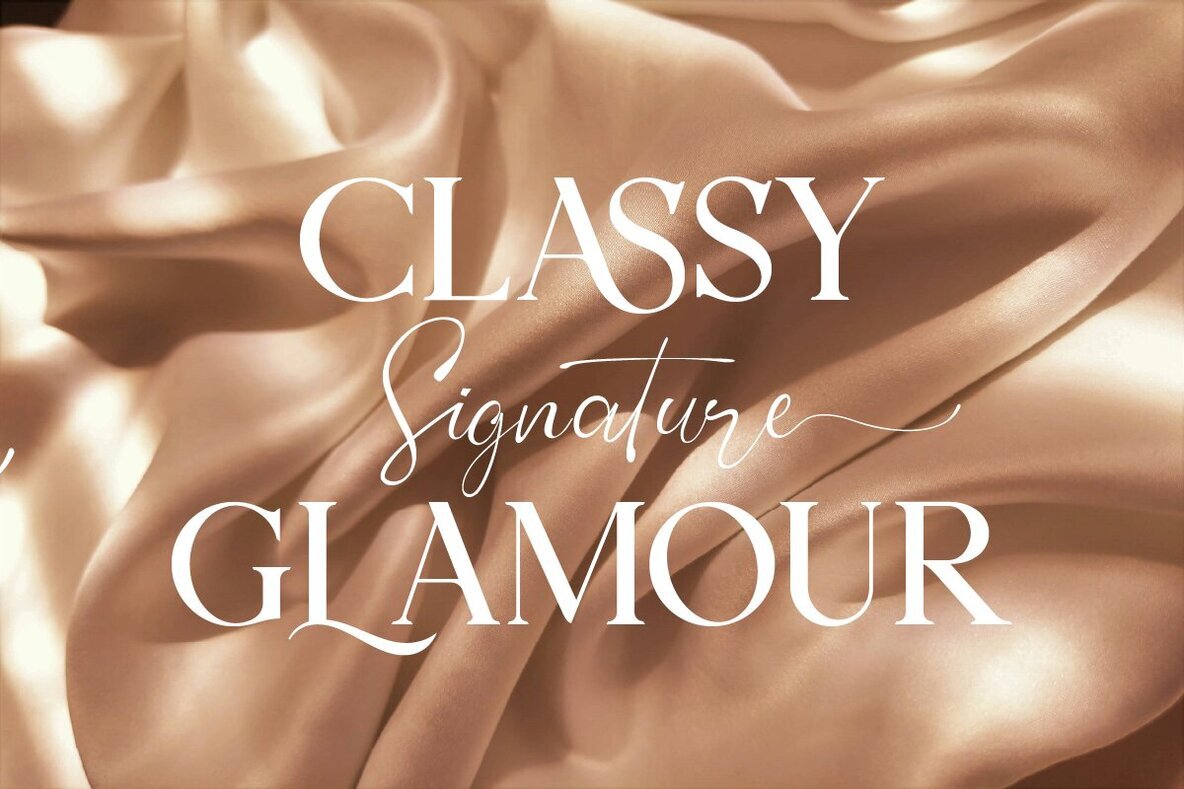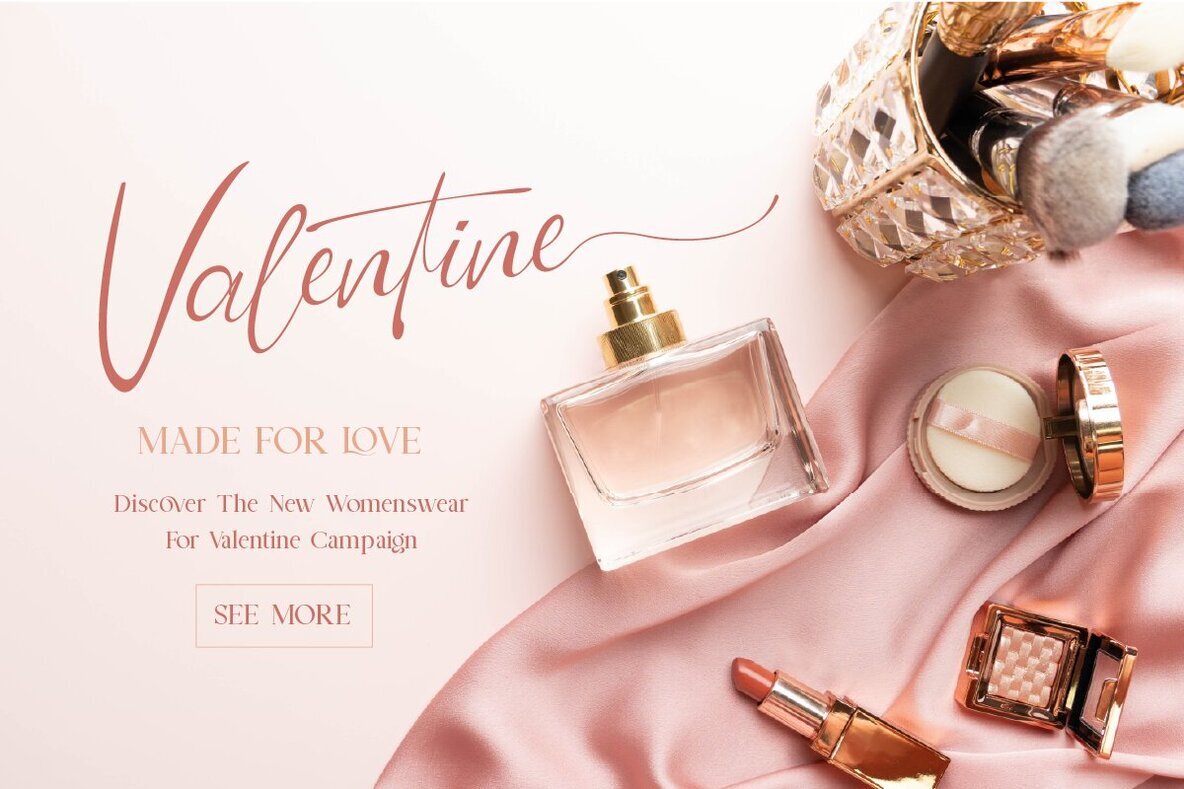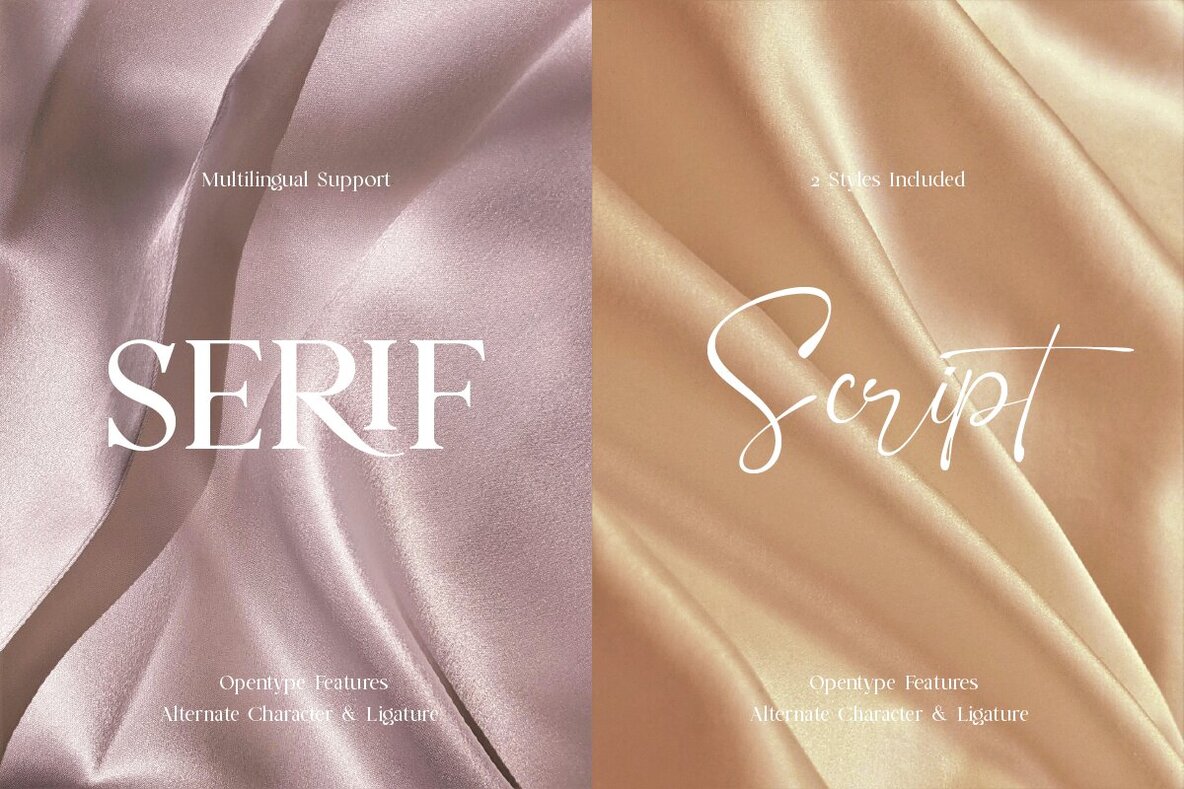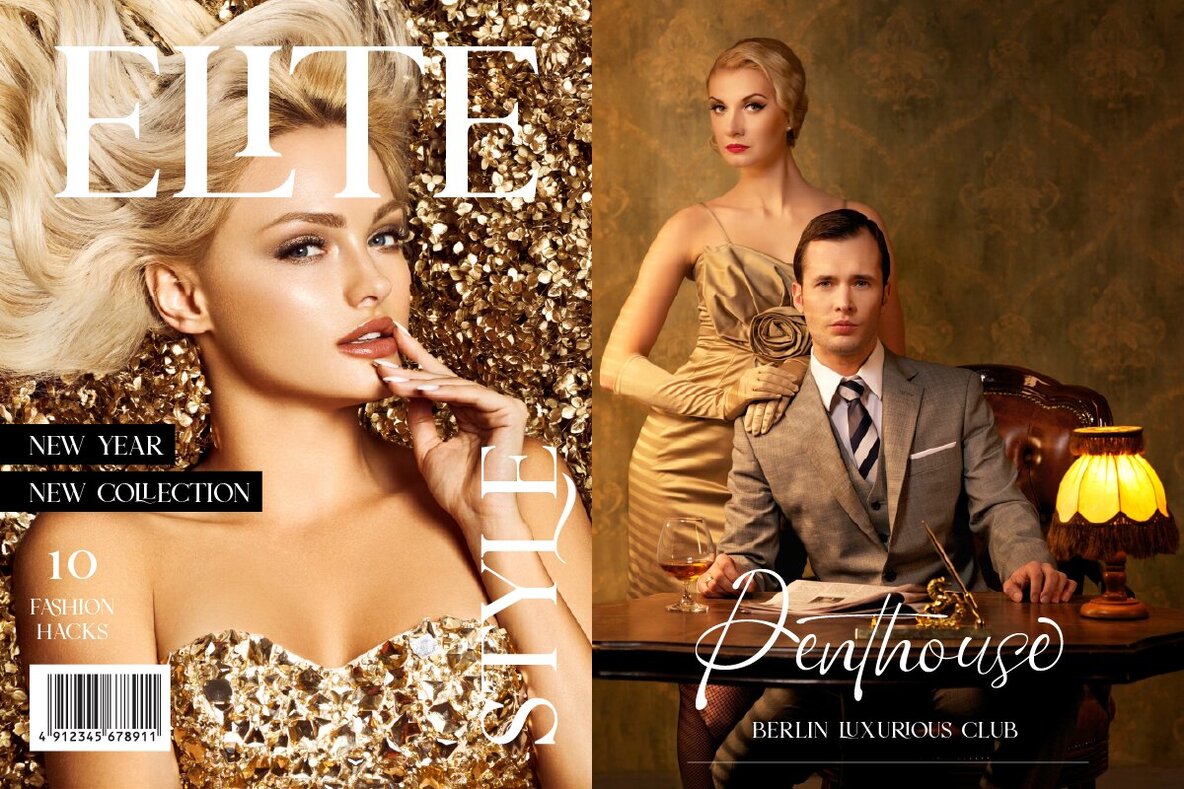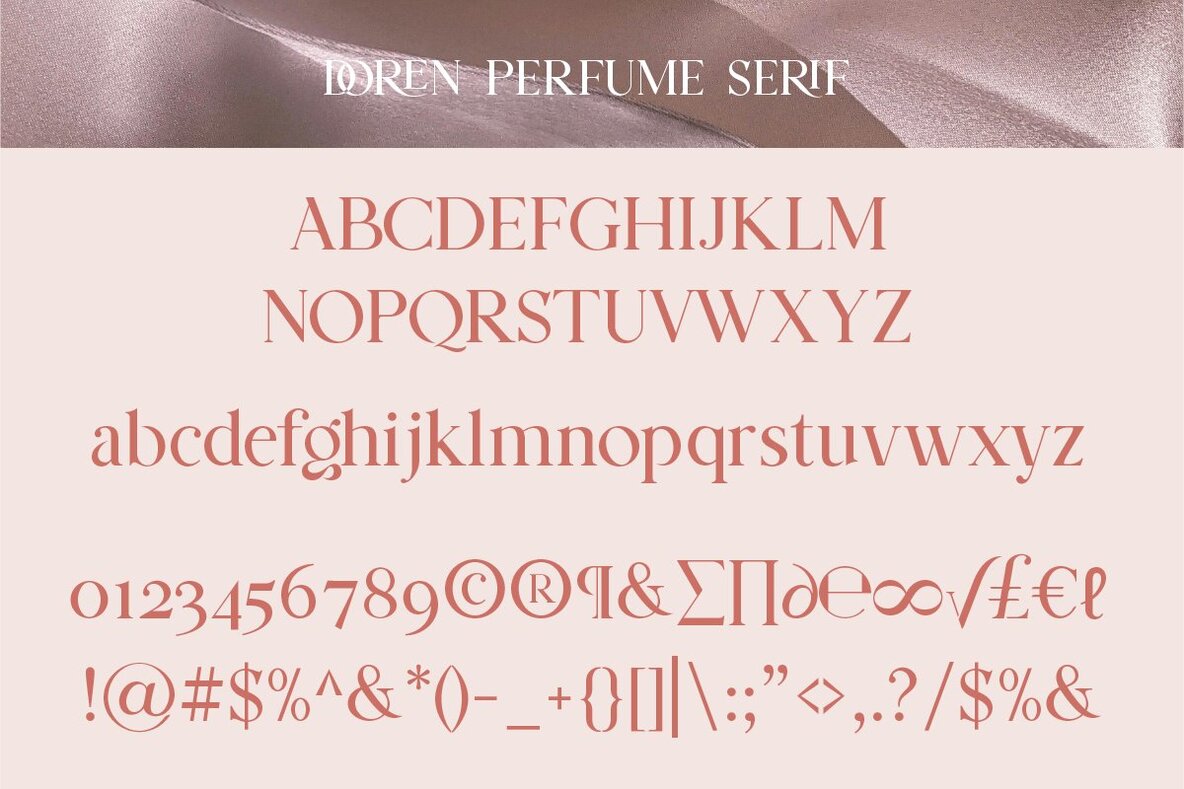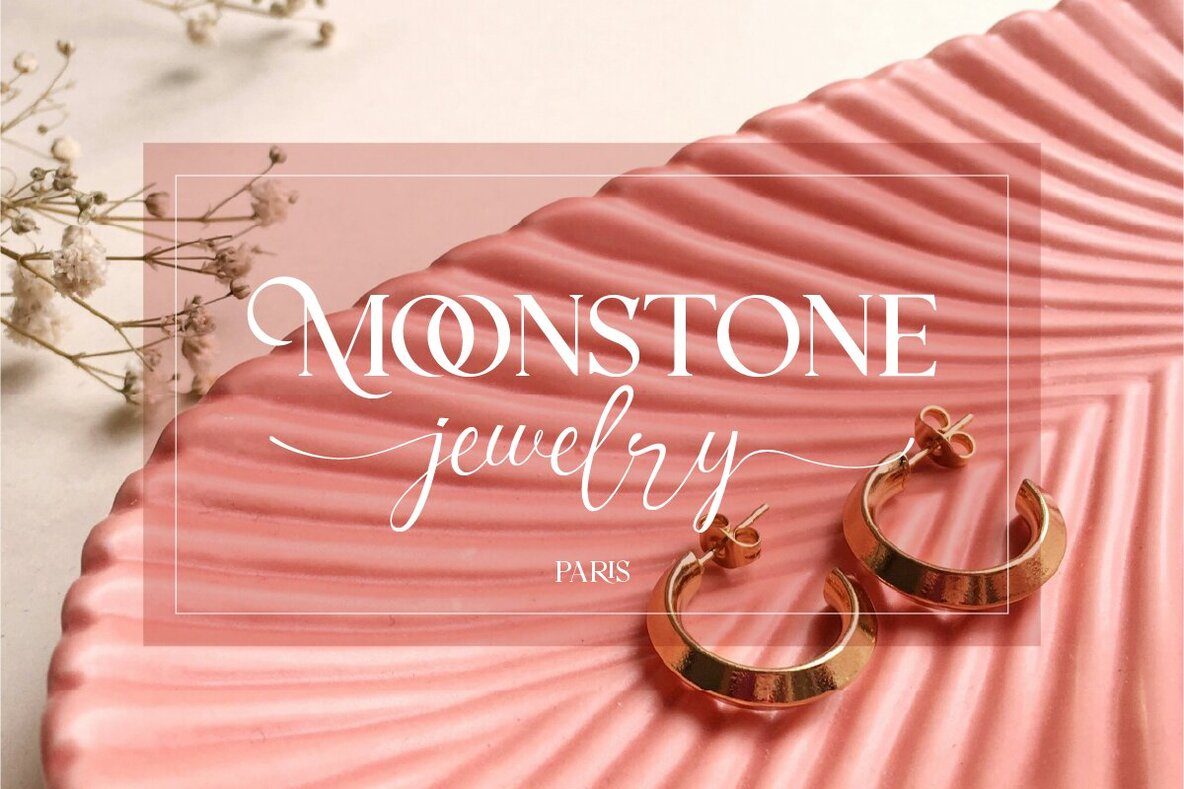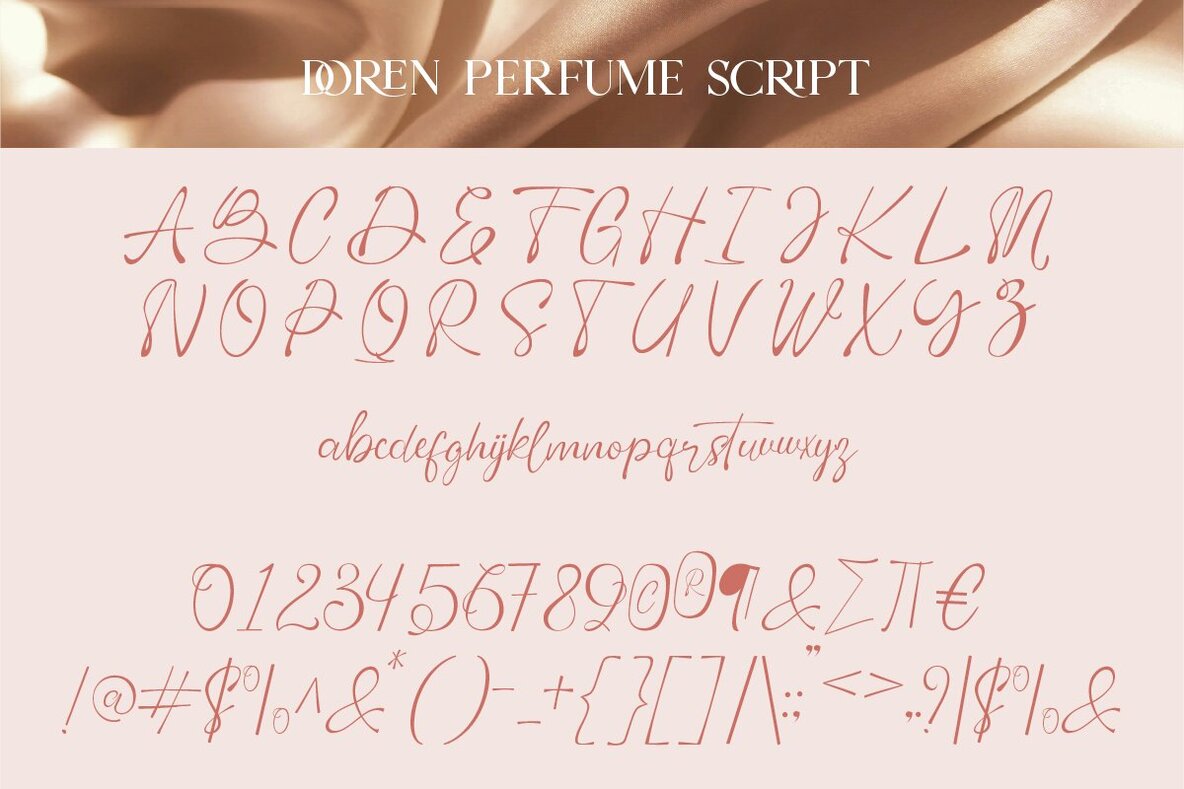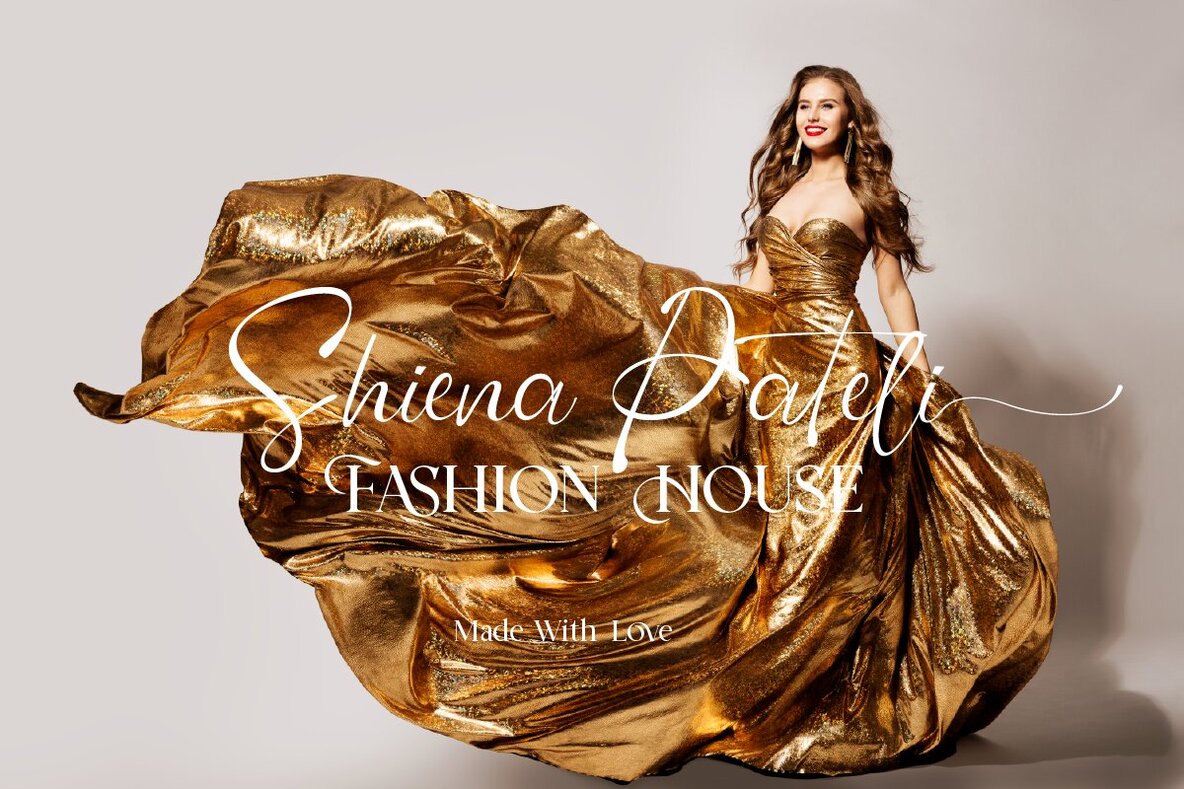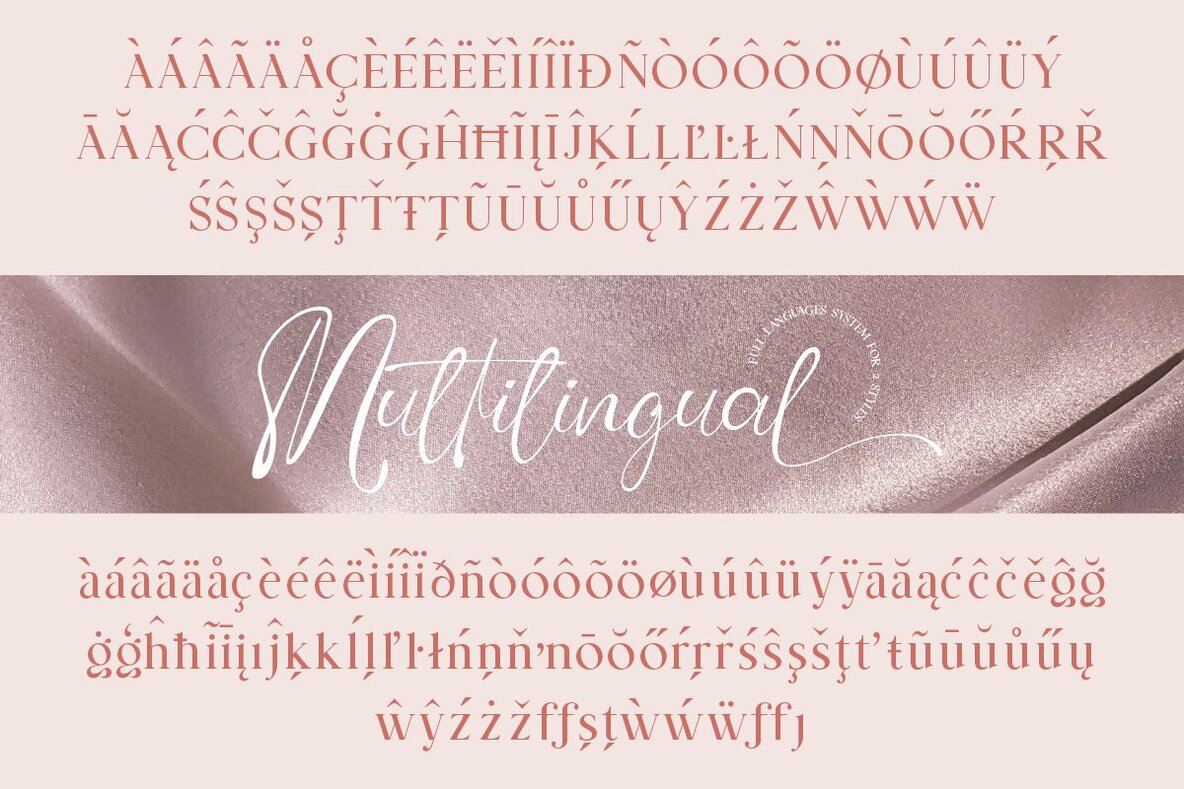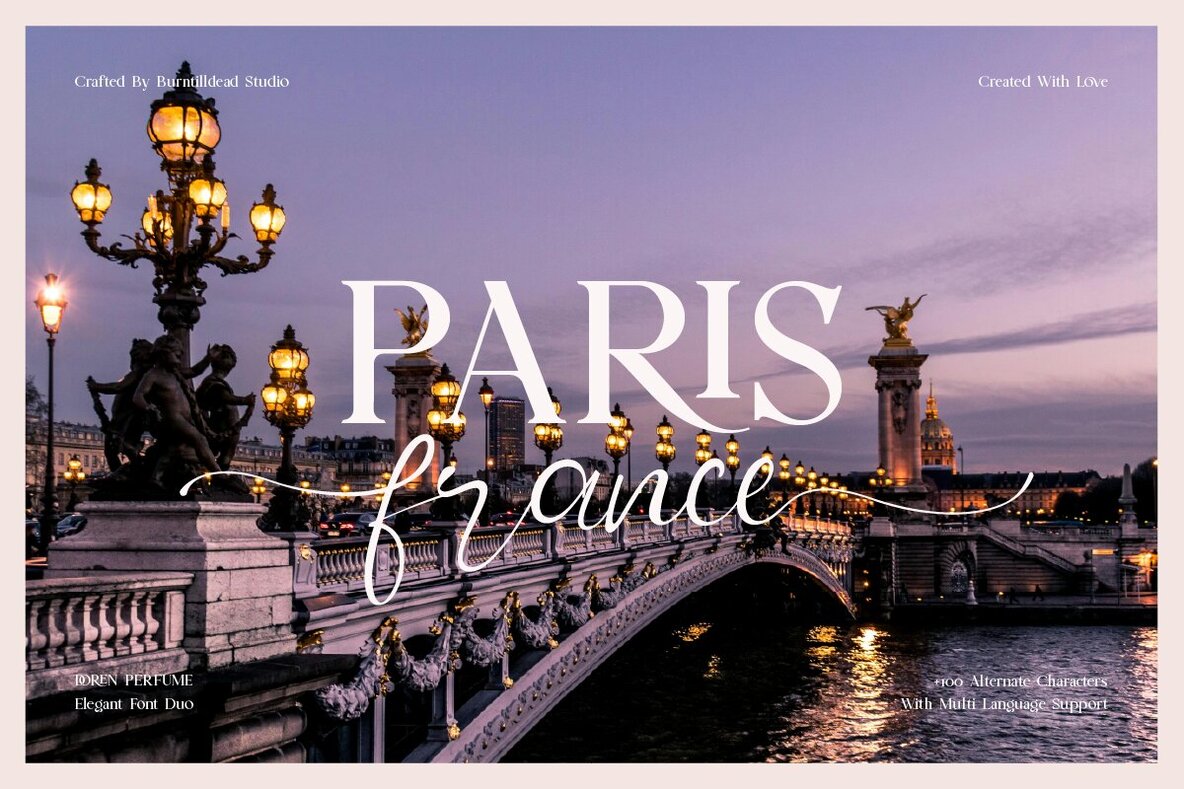
Doren Perfume Font
Doren Perfume Script
Doren Perfume Serif
Doren Perfume is a stylish font that merges the allure of script with the sophistication of serif, achieving a luxurious and feminine aesthetic. A perfect balance of elegance and glamour, this font exudes both a modern and vintage charm through its unique ligatures and alternates. Its versatility and multilingual support make it ideal for a wide range of applications.
This font is particularly well-suited for branding endeavors, wedding invitations, luxury fashion labels, beauty product packaging, lifestyle magazines, book covers, brochures, and social media content—any project that demands a touch of luxury. Key features include a complete set of uppercase and lowercase letters, numerical characters, punctuation, as well as ligatures and alternates to enhance design creativity.